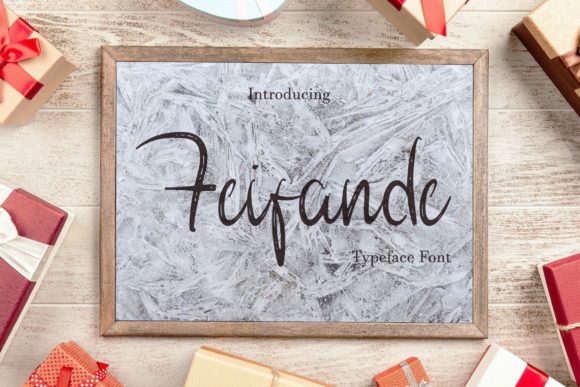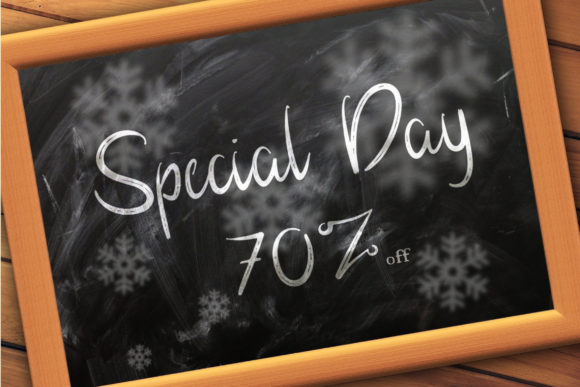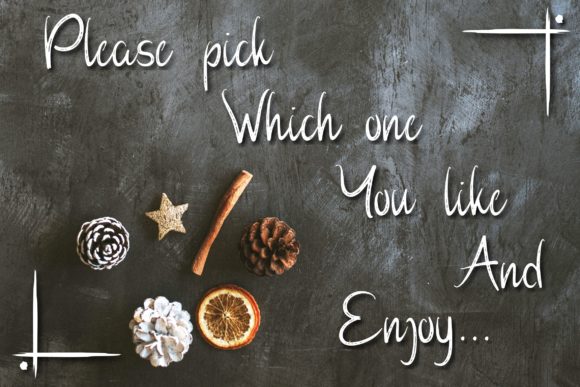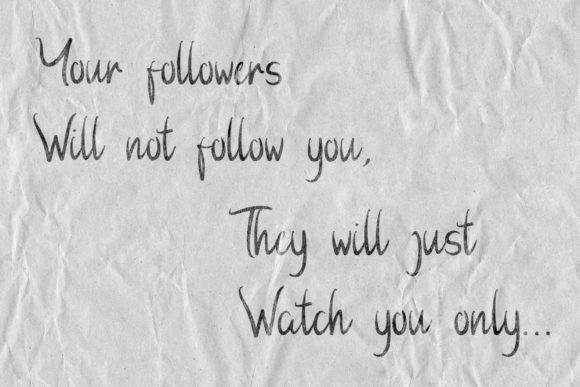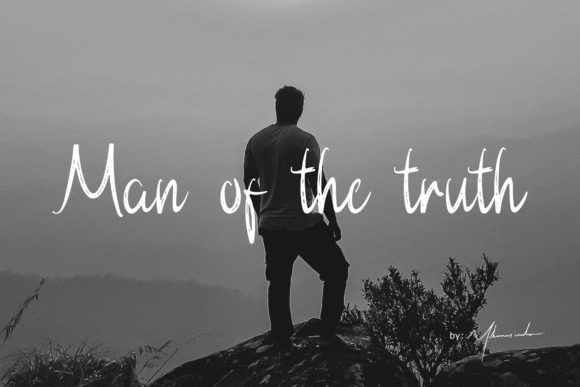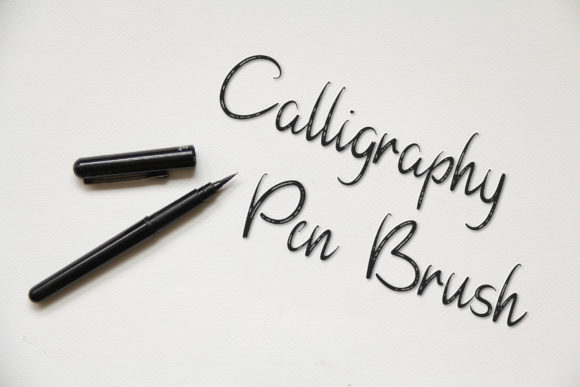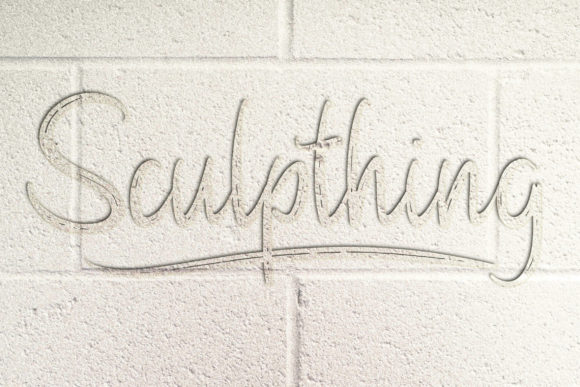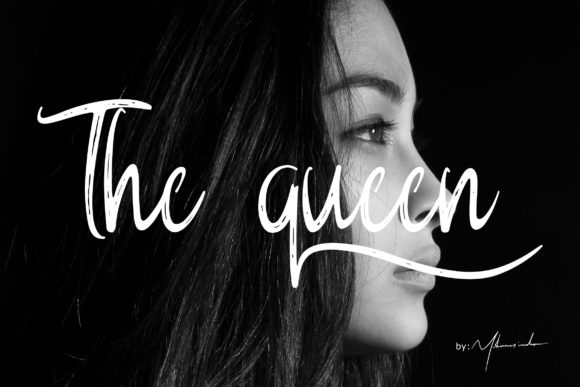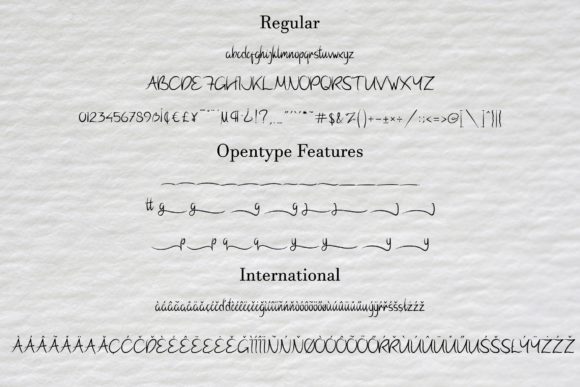
HomeScript FontsFeifande Font Script Fonts Feifande Font FacebookXPinterestWhatsApp Feifande Font Poster 2 Feifande Font Poster 3 Feifande Font Poster 4 Feifande Font Poster 5 Feifande Font Poster 6 Feifande Font Poster 7 Feifande Font Poster 8 Feifande Font Poster 9 About Feifande Font Feifande font with it’s unique texture will most certainly make all your projects more beautiful and interesting! DOWNLOAD NOW People also explored Marker Attack Font Buffalo Font Classy Script Font Snuggle Muffins Font Silly Tilly Font The Sultan Empire Signature Font Chendany Font Haunted House Font Shitti Beauty Font 311 0 TagsFeifande Font Previous articleValentina FontNext articleBlack Fearnest Font LEAVE A REPLY Cancel reply Comment: Please enter your comment! Name:* Please enter your name here Email:* You have entered an incorrect email address! Please enter your email address here Website: Save my name, email, and website in this browser for the next time I comment. Personal Use Free Pasile Personal Use Free Read more about this font 1980 Portable Personal Use Free Read more about this font Sweet Beautiful Personal Use Free Read more about this font Clumed Personal Use Free Read more about this font BLOG Where to Buy American Fonts Online in 2024 Where to Buy American Fonts Online: The Ultimate Guide for 2024 Looking for the perfect American font to elevate your design projects? You're in the... To increase your work productivity, choose the most readable fonts. Using Fonts in Digital Marketing: Tips to Strengthen Your Brand Identity Elegant Wedding Invitation Fonts – Handwritten & Script Fonts